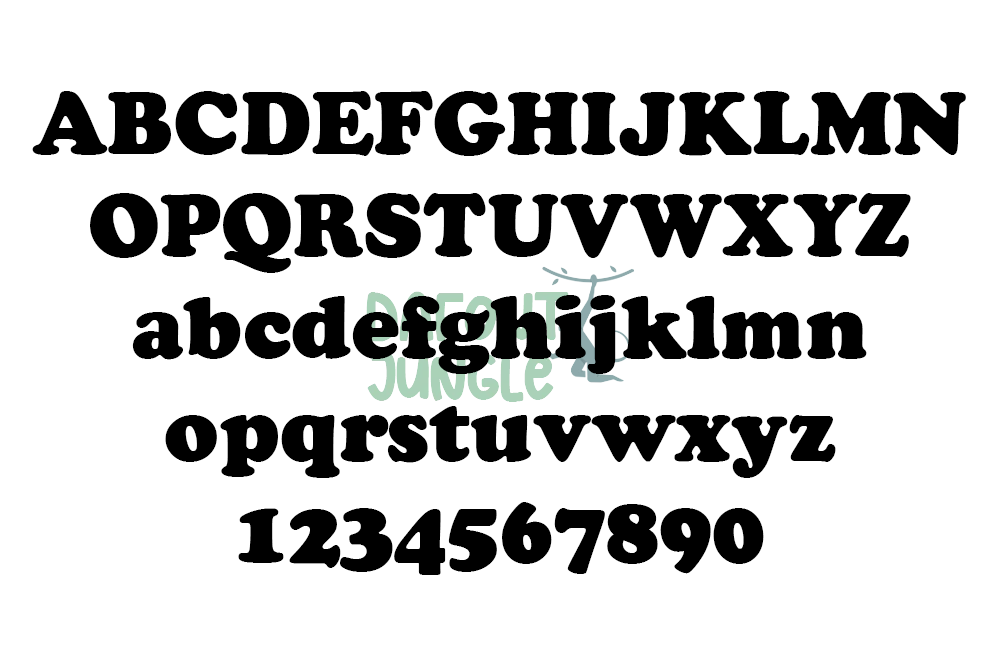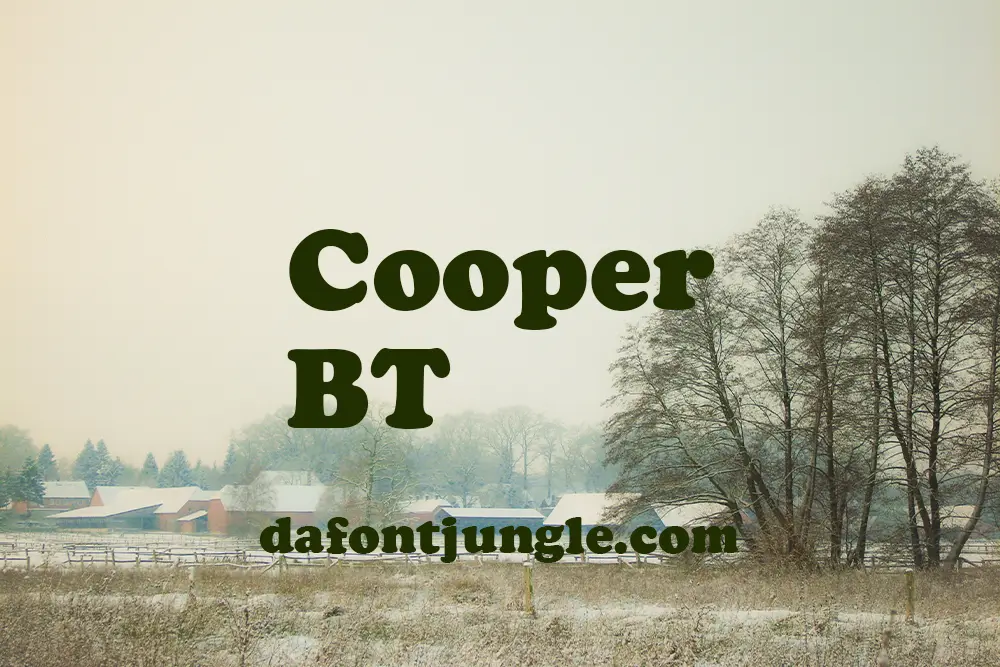
Cooper BT – Classic Rounded Serif Typeface
Cooper BT is a bold serif font known for its soft, rounded edges and strong presence. Originally designed as Cooper Black by Oswald Cooper in 1921 for Barnhart Brothers & Spindler, this typeface quickly became a standout in American typography. Bitstream later expanded the original design into a full font family, making it more versatile for both headlines and text.
Its retro feel and friendly curves make it a favorite for logos, posters, packaging, and editorial layouts.